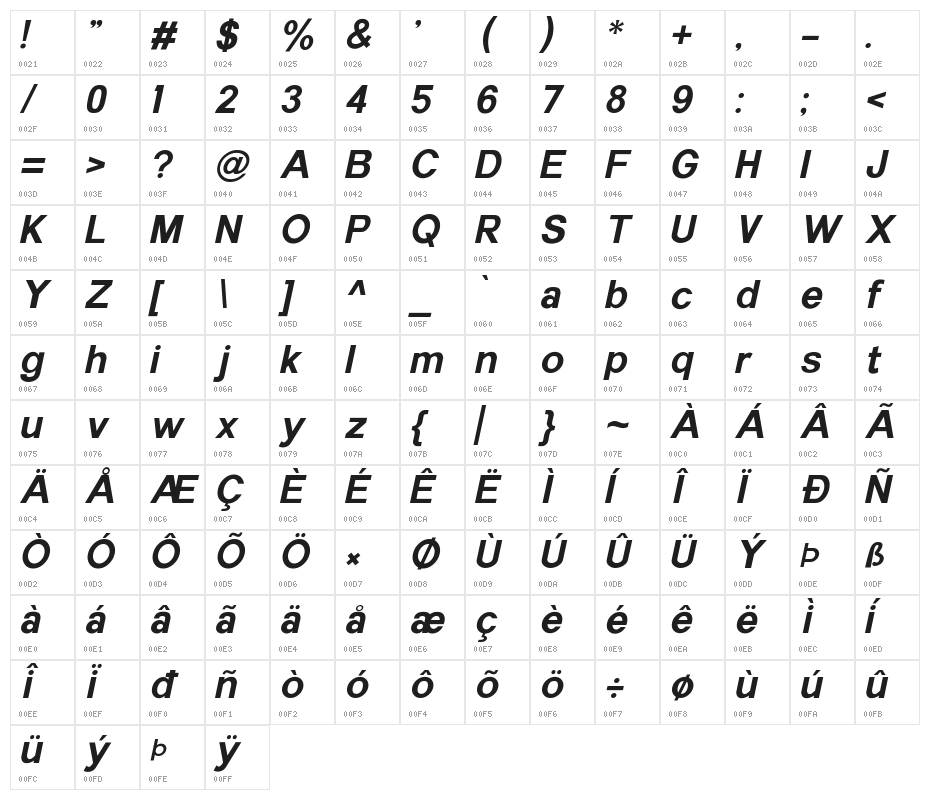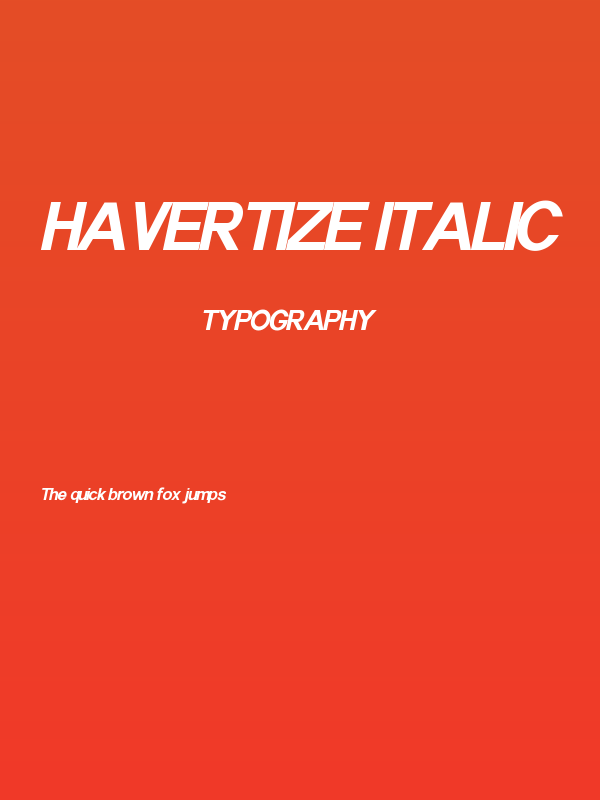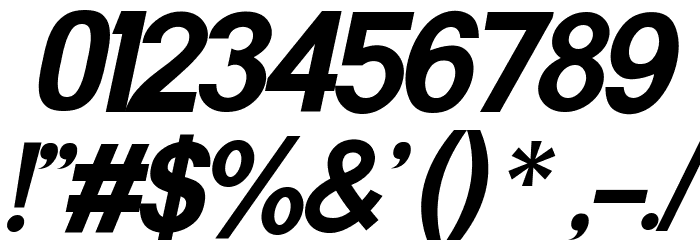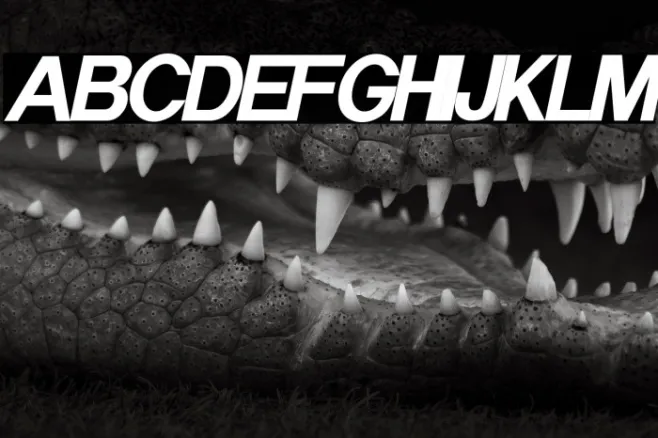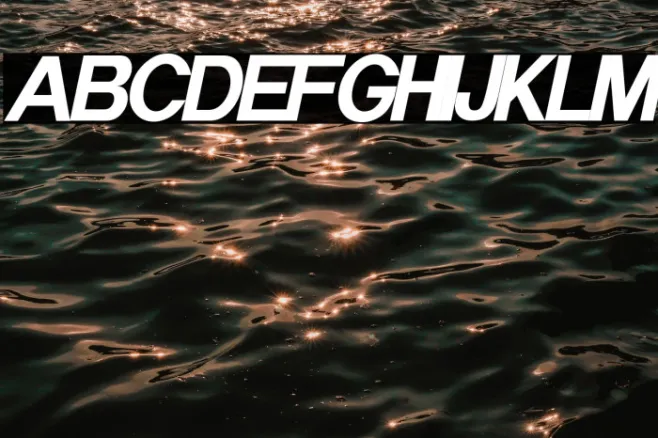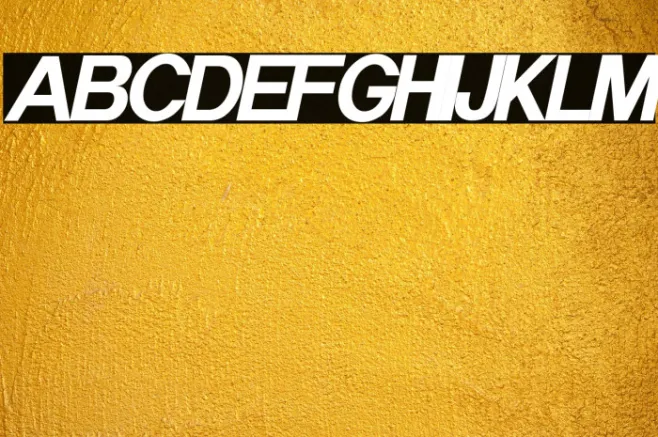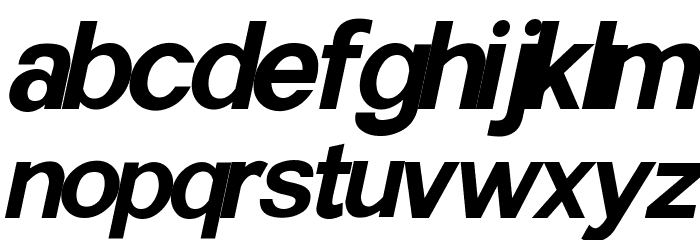
Havertize Italic Font
Havertize Italic Description
This font exhibits a bold and dynamic style with a pronounced italic slant, giving it a sense of movement and urgency. The characters are robust and well-defined, featuring smooth curves and sharp edges that enhance readability. The uppercase letters are slightly taller than average, while the lowercase letters maintain a consistent height, contributing to a balanced appearance. The numerals are clear and distinct, ensuring they stand out in any context. Special characters are well-integrated, maintaining the font's cohesive look. Overall, this typeface is versatile, suitable for a variety of design applications where a modern and assertive aesthetic is desired.
| Use Case | Headlines, Logos, Advertising |
| Proposed Projects | Ideal for branding, advertising, headlines, and digital media where a strong, modern impression is needed. |